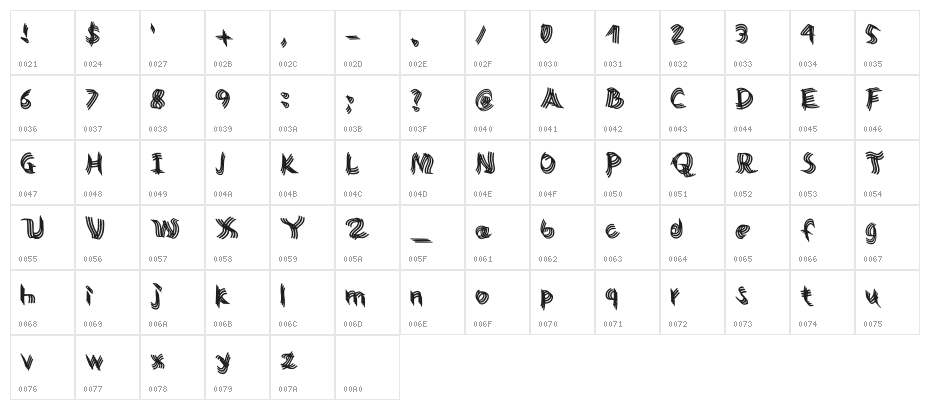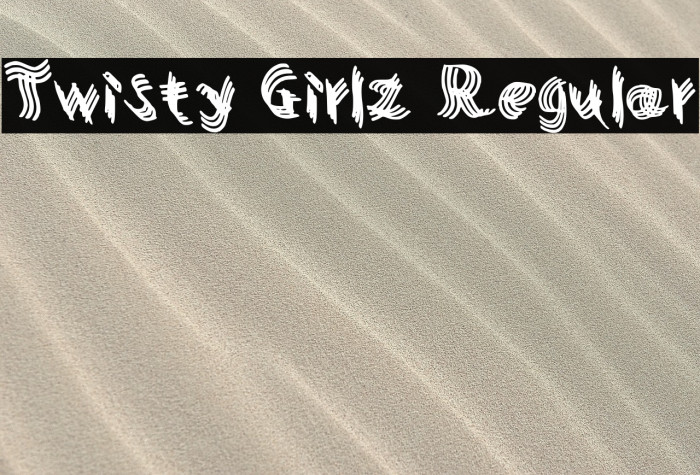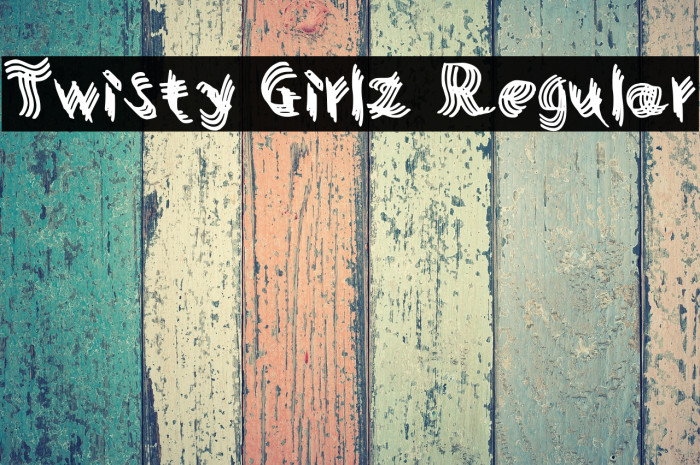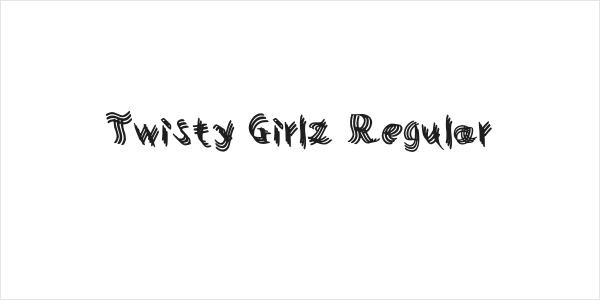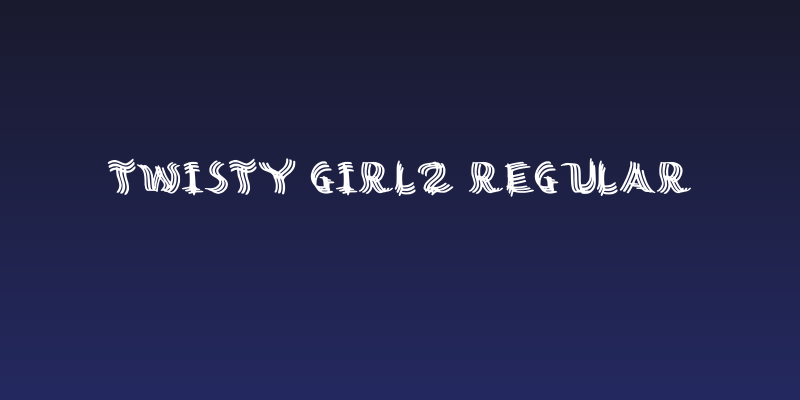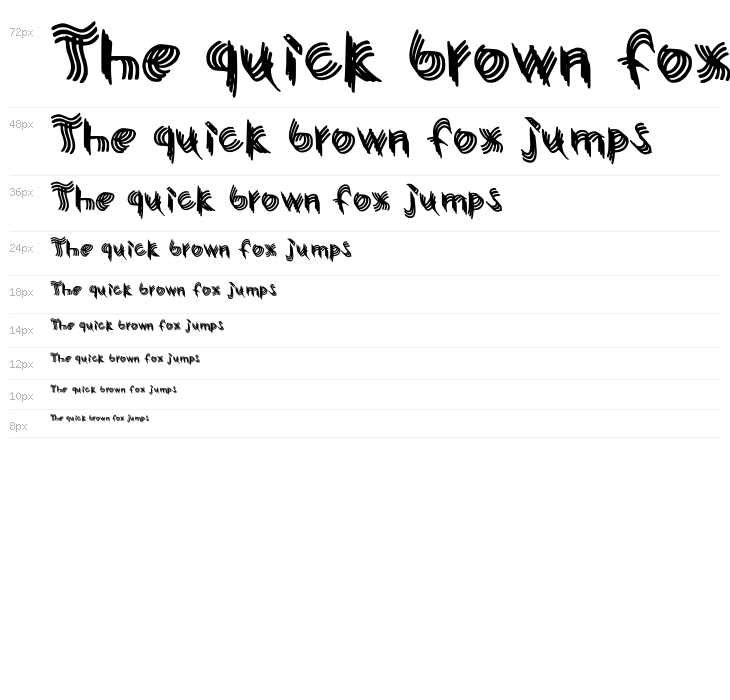
Twisty Girlz Regular Font
Twisty Girlz Regular Description
This font features a playful and dynamic design with a twisty, hand-drawn appearance. Each character is composed of multiple overlapping strokes, creating a sense of movement and energy. The letters are bold and have a slightly irregular shape, adding to the whimsical and artistic feel. The font maintains a consistent thickness throughout, with no significant contrast in stroke width. Its unique style makes it stand out, making it ideal for creative and informal projects.
| Proposed Projects | Perfect for children's book covers, playful branding, event posters, and creative social media graphics. |